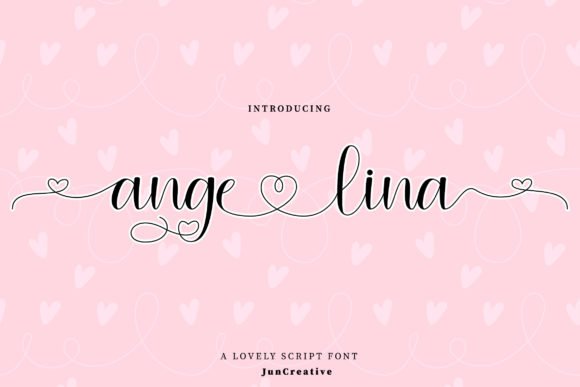
Unlock the Magic of Angelina Font
There’s nothing quite like the thrill of bringing a creative idea to life. You’ve got a vision, a spark of inspiration that refuses to be ignored. As you begin to shape your concept, you realize that the right font can be the difference between a good design and a great one. That’s where Angelina Font comes in – a delicate, stylish, and whimsical script font that will transport your creations to a world of elegance and sophistication.
With its PUA encoding, Angelina Font offers unparalleled flexibility, allowing you to access a wide range of glyphs and swashes with ease. Whether you’re crafting a wedding invitation, a children’s book, or a luxury brand’s marketing materials, this font is sure to elevate your work to new heights. Its versatility and charm make it an invaluable asset for designers of all levels, and its potential to add a touch of magic to any project is simply undeniable.
- Font Family: Angelina Font is a beautiful, elegant script font, suitable for various design applications.
- Unique Characteristics: Features elegant, flowing lines, and a touch of sophistication, perfect for creating a luxurious and refined look.
Designer Review: Angelina Font
As a designer, I was excited to dive into the Angelina Font and see what it had to offer. Overall, I’d say it’s a solid choice for any project, but it’s not without its flaws. Let’s break it down:
- ✨ Elegant, cursive script that’s perfect for adding a touch of sophistication to your designs.
- ✨ Wide range of language support, making it a great choice for global brands or publications.
- ✨ Beautifully crafted serifs and terminals that add to the font’s overall elegance.
- ⚠️ Limited character set, which may cause issues for longer blocks of text.
- ⚠️ Not ideal for bold, headline typography due to its delicate nature.
- ⚠️ Some users may find the font too ornate or fussy for certain design styles.
Overall, I’d give Angelina Font 3.5 out of 5 stars. While it’s a beautiful addition to any design, its limitations make it better suited for specific projects or applications. If you’re looking for a elegant, cursive script for your next project, Angelina Font is definitely worth considering. Just be aware of its potential limitations and adjust your design accordingly.
The Angelina Font is versatile and can be used in a variety of design projects, including:
- Home decor and furniture design
Alternatives to Angelina Font for Designers